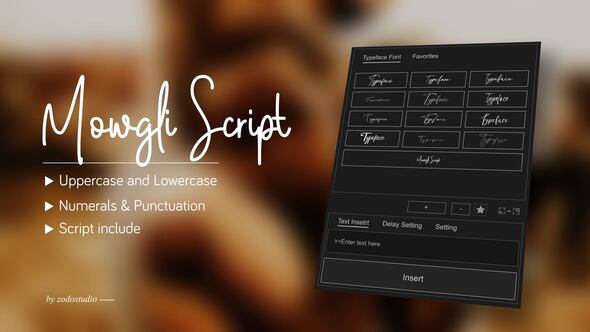
Bring your typography to life with the beautifully designed Free Videohive 58915661 Animated Typeface – Mowgli Script, now available exclusively at GFXInspire. This elegant, fluidly animated script typeface blends handcrafted design with smooth motion, making it a top-tier choice for cinematic openers, wedding videos, branding packages, and social media visuals.
Designed with care and optimized for creators, the Mowgli Script Animated Typeface allows motion designers and editors to add a touch of class and sophistication to their videos—without the hassle of building text animations from scratch.
✨ Key Features of Animated Typeface – Mowgli Script​
✍️ Elegant Script TypographySmooth, calligraphy-inspired design with realistic stroke animations
🎬 Fully Animated LettersEach character is hand-timed for fluid motion
🎯 Customizable in After EffectsChange color, scale, position, and timing with ease
🎨 Perfect for Branding & Cinematic ProjectsAdd elegance and sophistication to your text sequences
💡 Who Should Use the Mowgli Script Typeface?​
The Mowgli Script Animated Typeface is designed for creators who want to add a refined, handwritten feel to their videos. Whether you're working on a romantic trailer, luxury brand campaign, or creative vlog intro, this typeface delivers.
Use Cases Include:​
• 💒 Wedding & Event Videography – Perfect for titles, intros, and slideshows
• 🛍️ Fashion & Lifestyle Branding – Add a high-end, cursive touch to product reveals
• 📺 YouTube Creators – Use as titles or lower-thirds with an elegant spin
• 🎥 Cinematic Trailers – Ideal for drama, romance, or biography-style films
• 🎓 Educational or Motivational Content – Give your quotes and messages extra personality